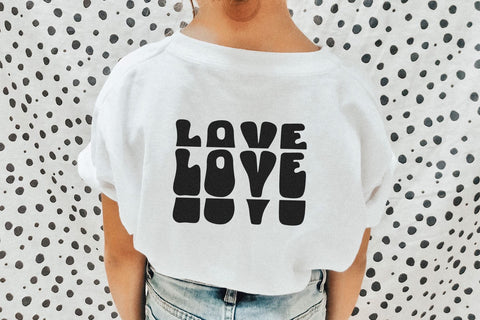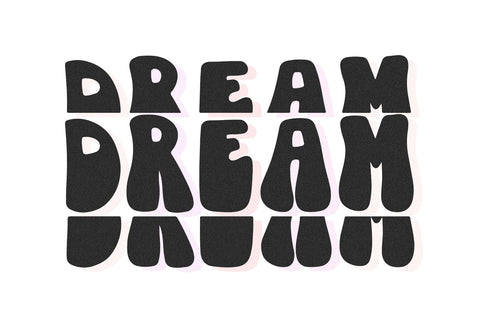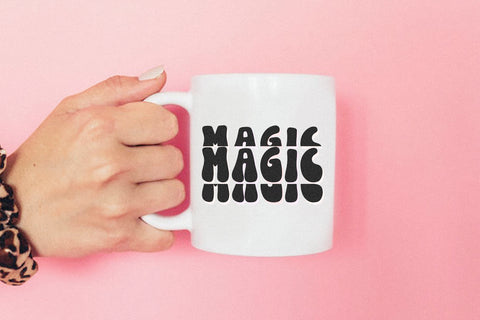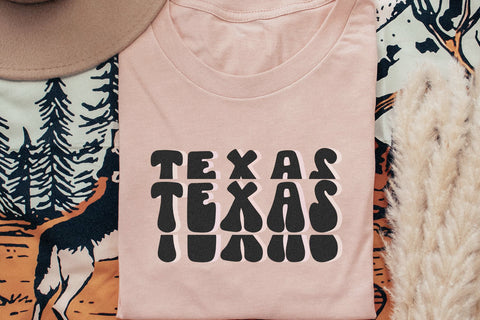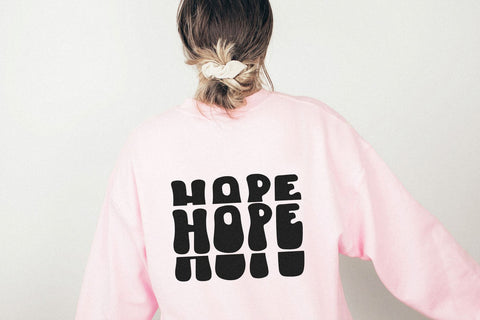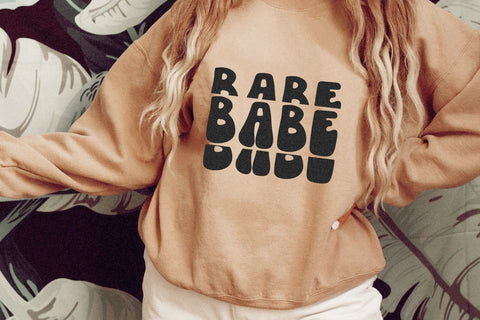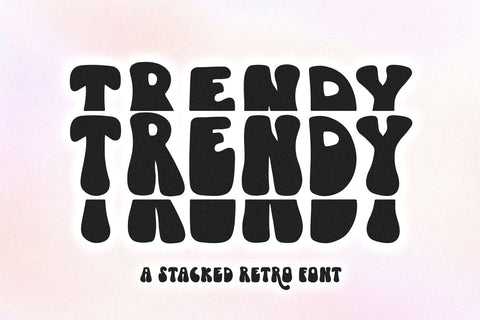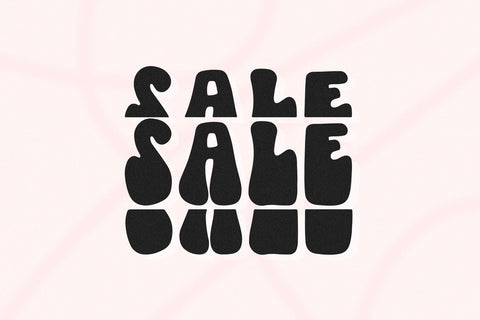
Trendy - Retro Stacked Font
Trendy Stacked is a fun stacked font perfect for all of your retro designs!
The work is already done for you, just simply type out any word/phrase and it will already be in a fun stacked look!
This stacked design was created from my original font - Stay Trendy
This font is perfect for creating shirts, stickers, procreate designs, instagram quotes and more!